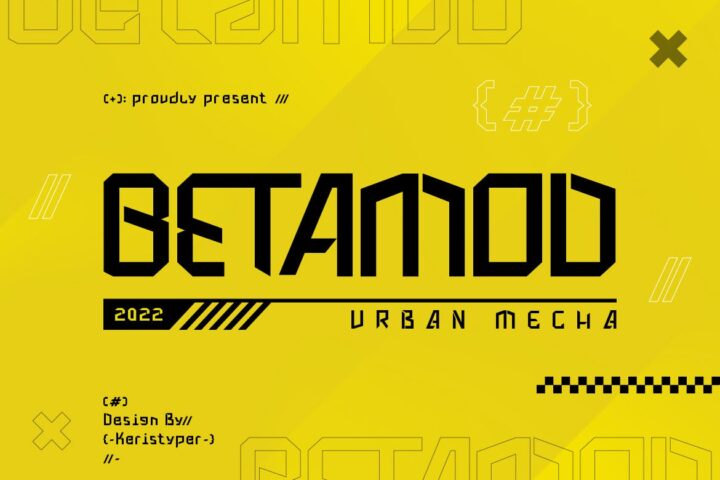
Betamod Font
Introducing Betamod, Designed the typeface with a modern feel to achieve the theme that was inspired by sci-fi and technology. This font is good for logo design, Social media, Movie Titles, Books Titles, short text even long text letters, and good for your secondary text font with sans or serif.
Featured:
Standard Uppercase & Lowercase
Numeral & Punctuation
Multilingual : ä ö ü Ä Ö Ü ß ¿ ¡
Alternate & Ligature